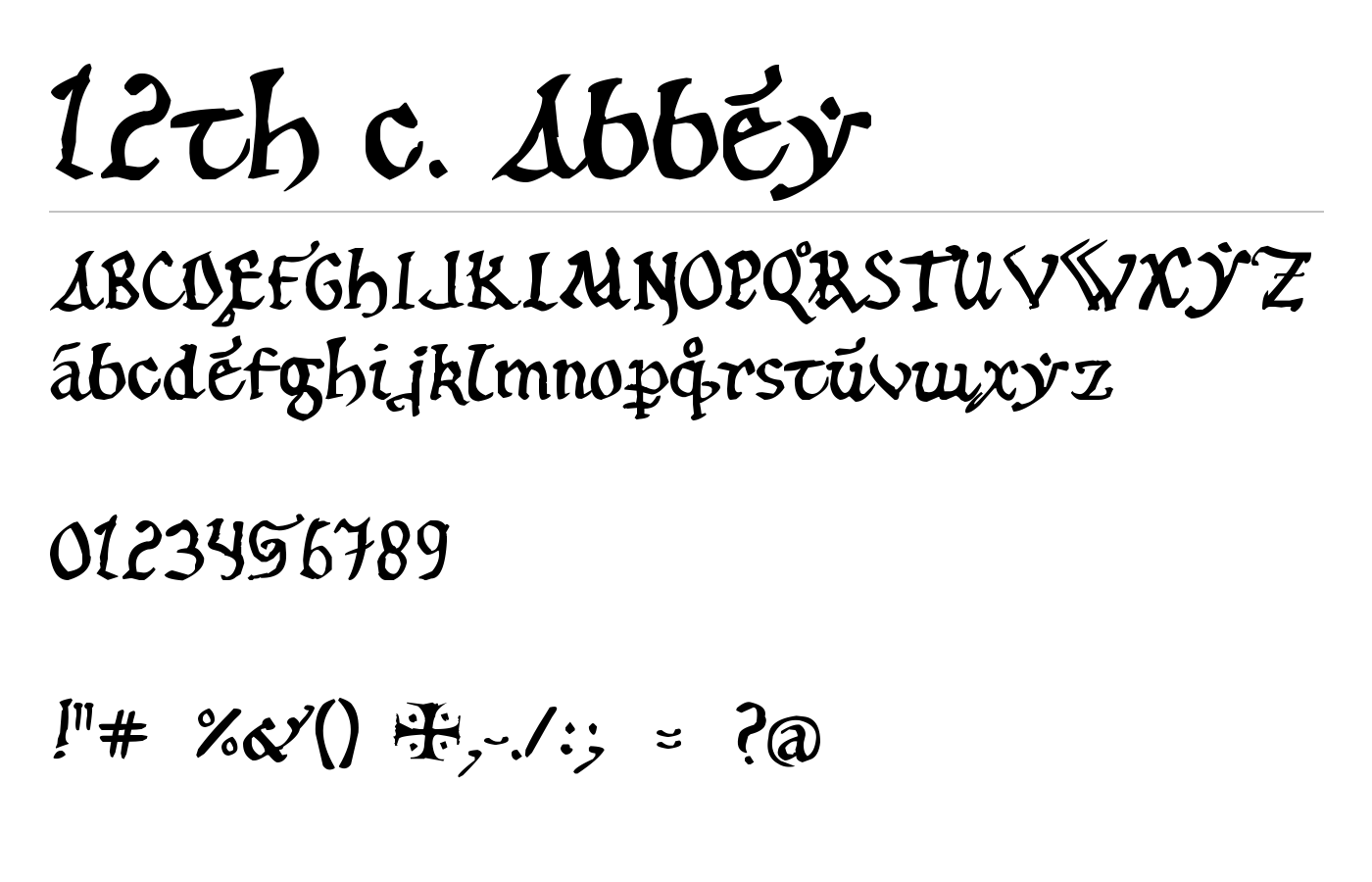
12th c. Abbey is a distinctive calligraphic font inspired by medieval manuscript lettering, featuring irregular, sharp strokes and a handcrafted feel that evokes historical, ancient texts. Its stylized, slightly condensed letterforms with unique flair bring a rich, vintage character ideal for projects seeking an old-world, mystical, or medieval atmosphere. This font works beautifully for themed invitations, historical publications, or branding that aims to convey tradition and timeless elegance.
12th c. Abbey Font